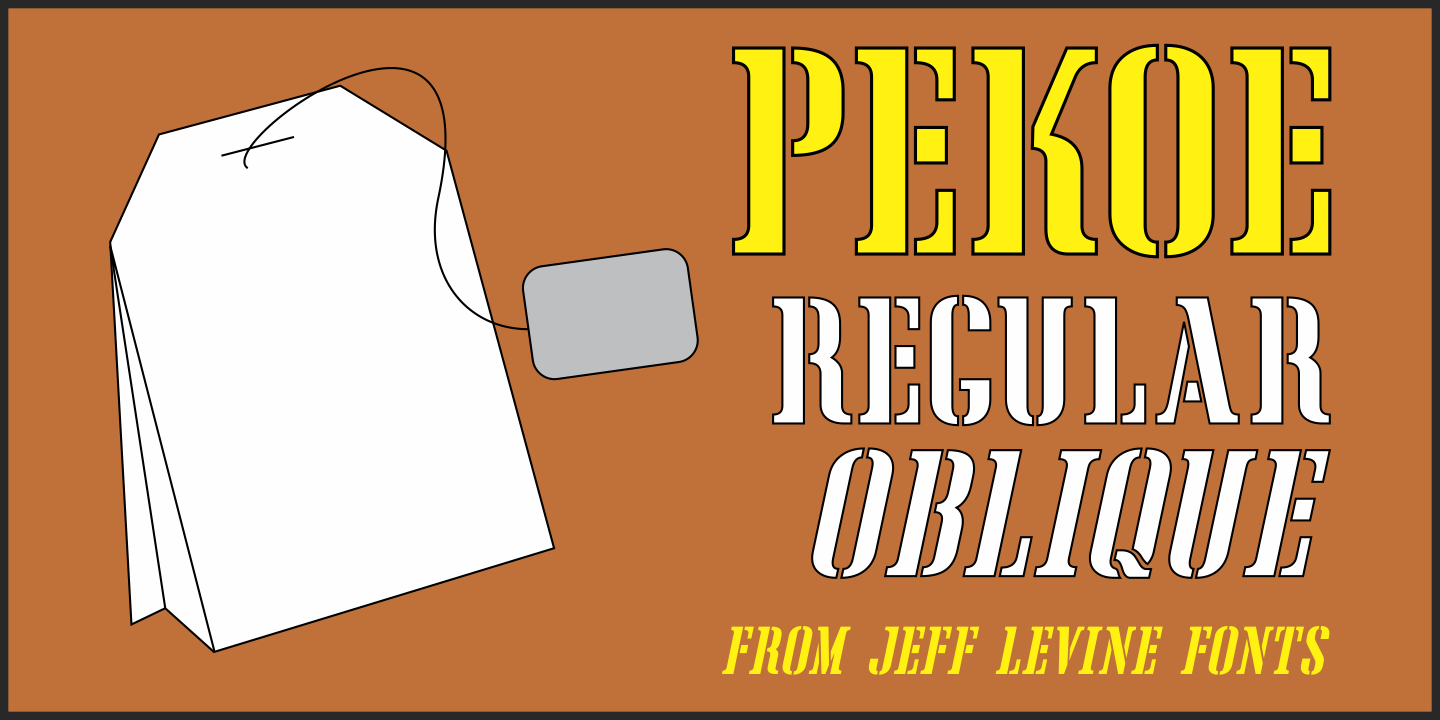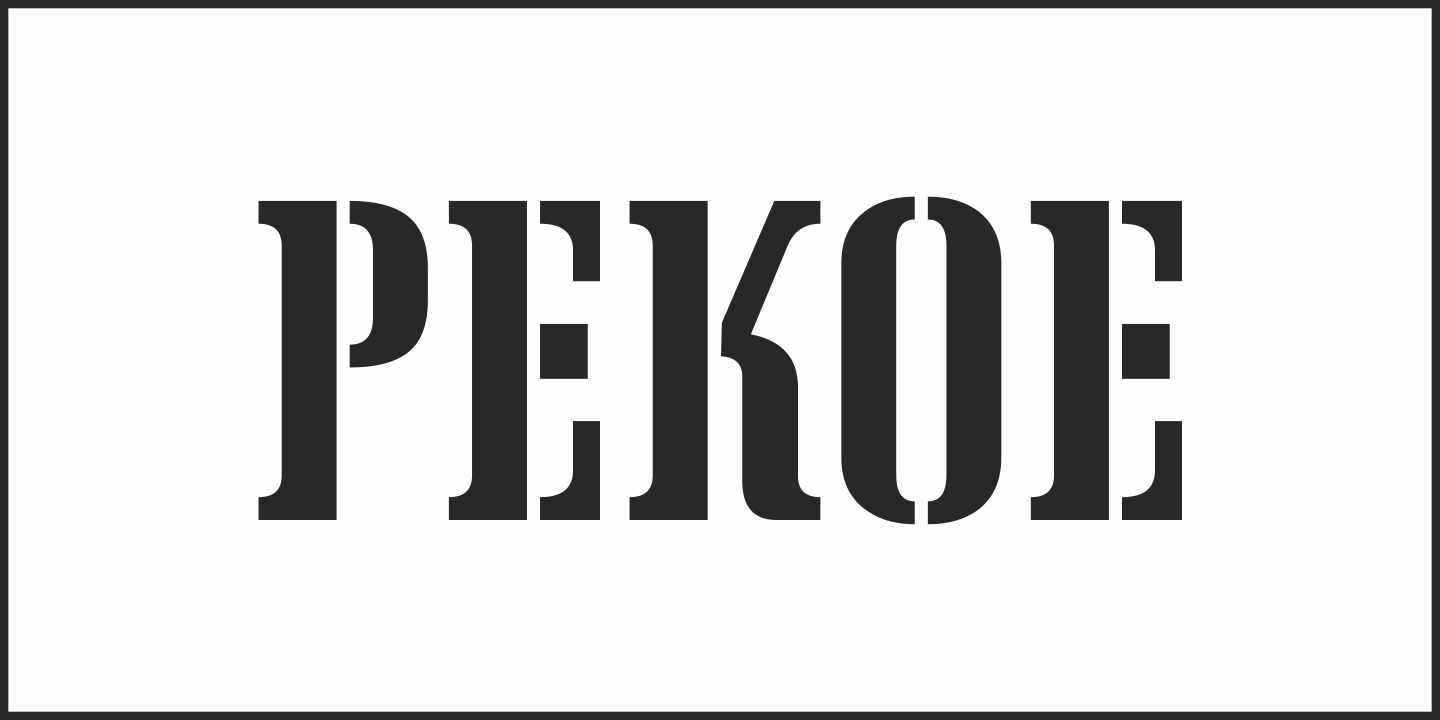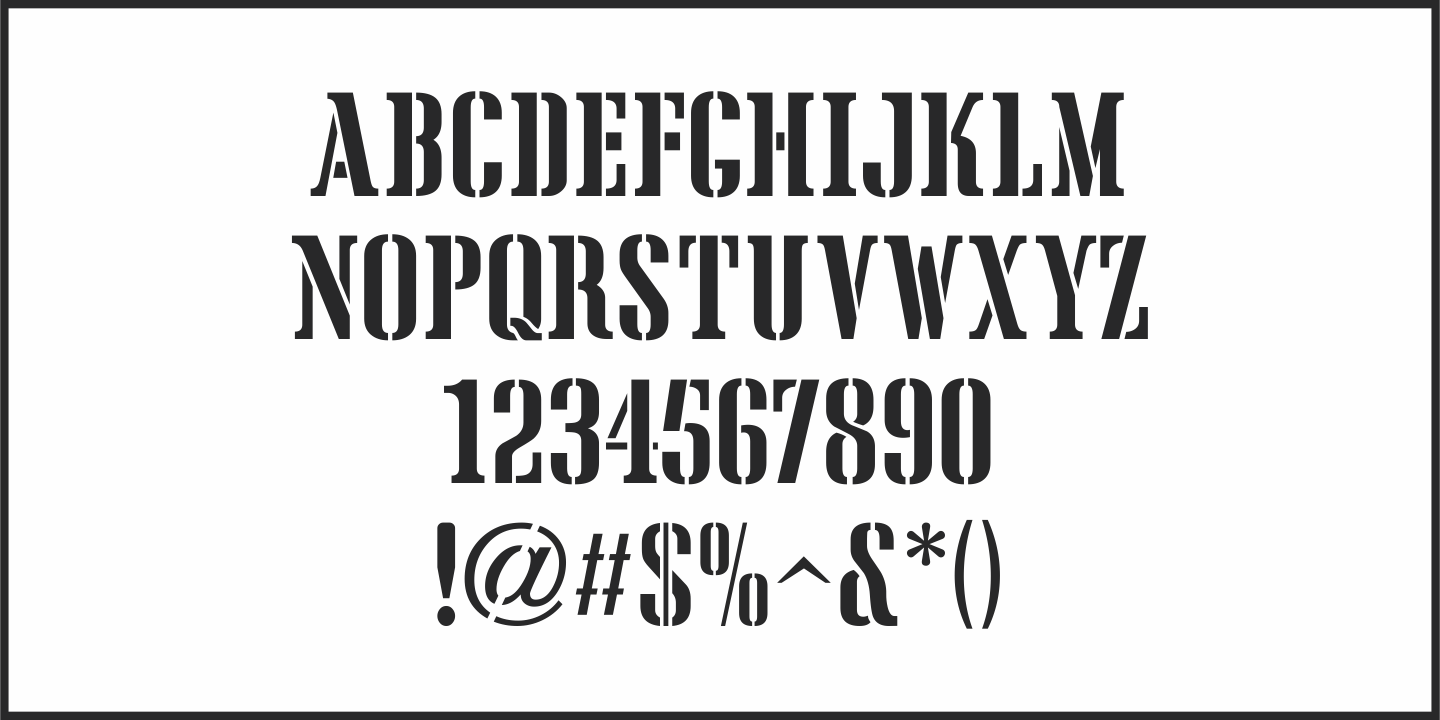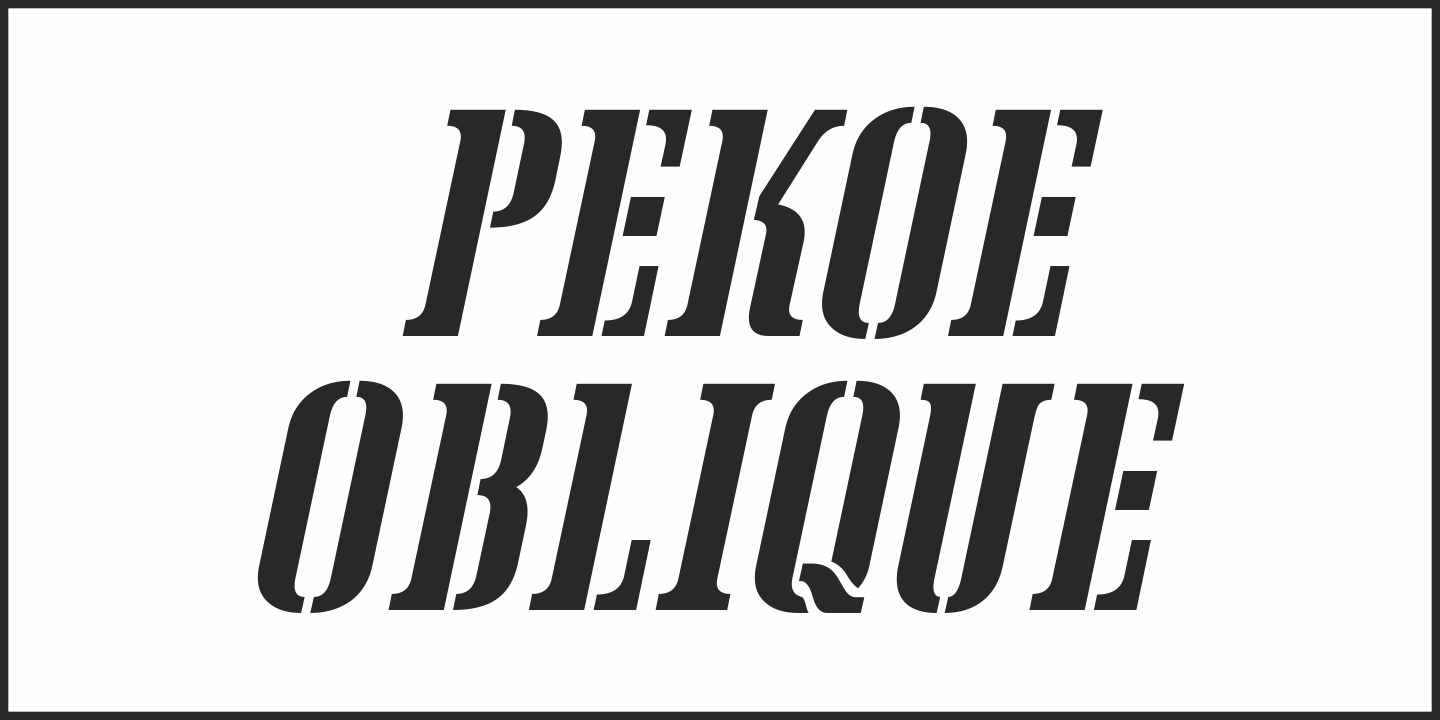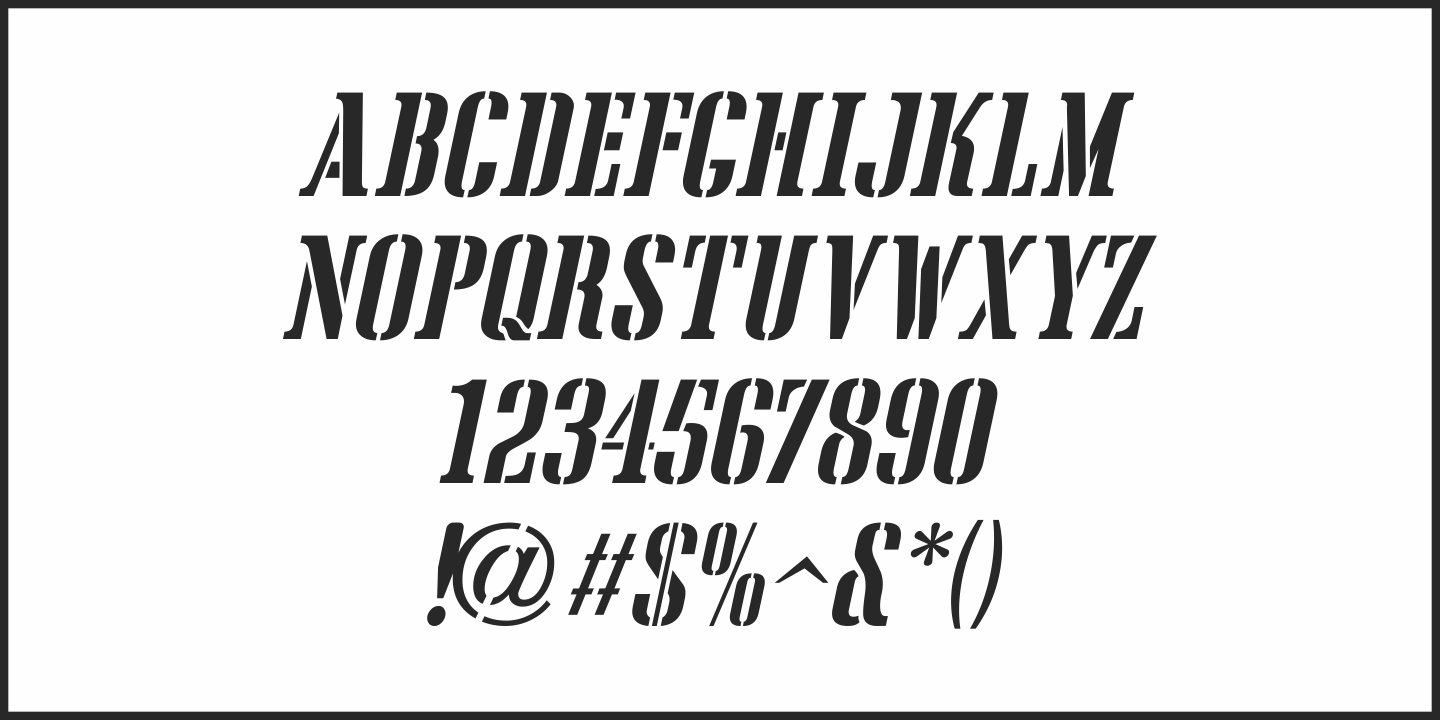
Pekoe
Jeff Levine Fonts offers its interpretation of Tea Chest, an Art Deco serif stencil font originally designed in 1939 by Robert Harling for the Stephenson-Blake type foundry.
Pekoe JNL is available in both regular and oblique versions.
Pekoe JNL Regular by Jeff Levine Fonts